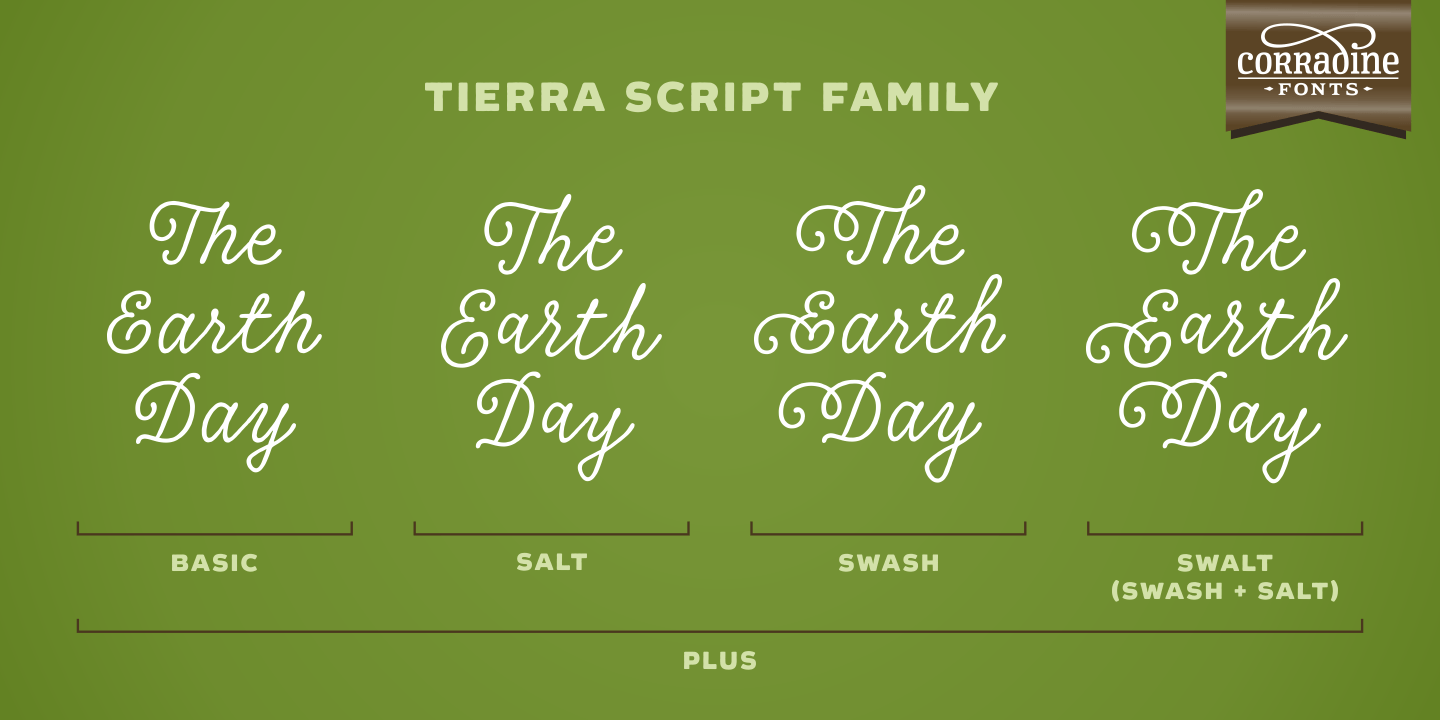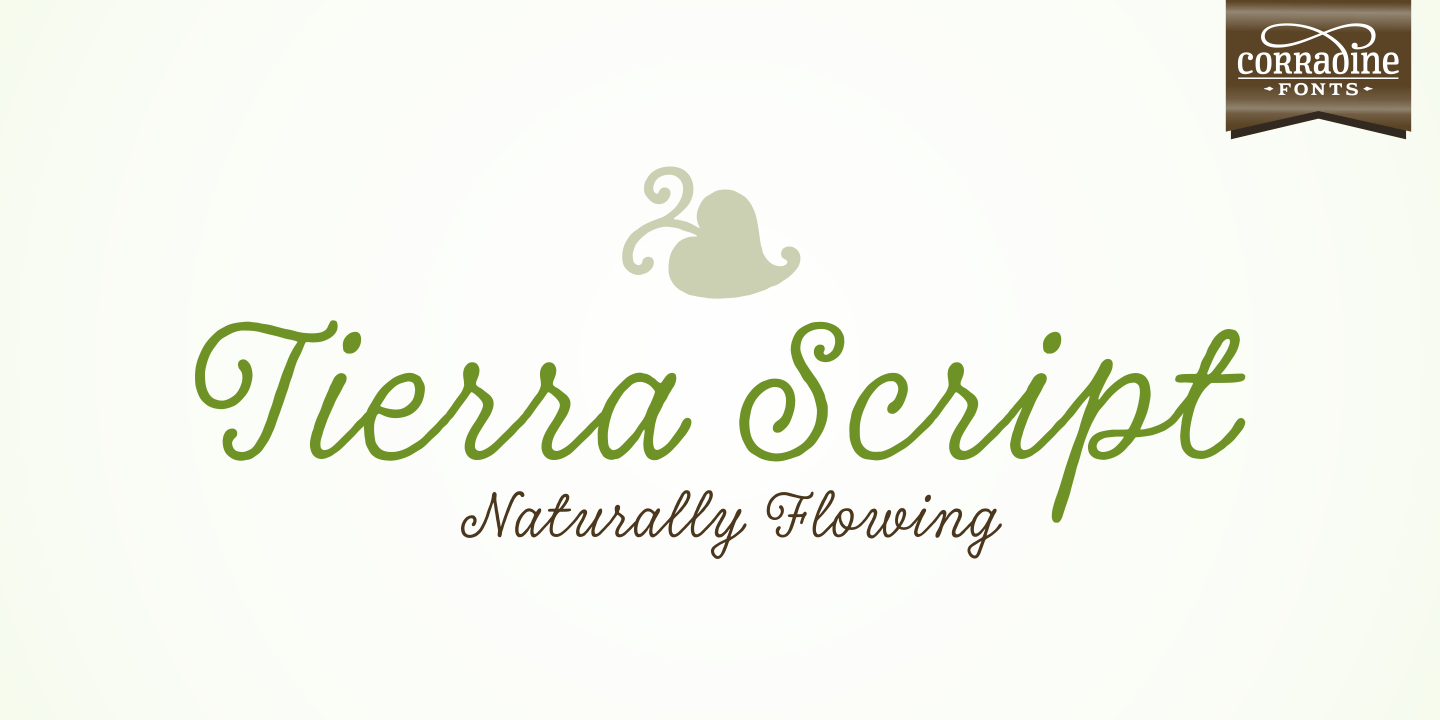
Tierra Script
About Tierra Script
Tierra Script is a connected script typeface with a simple structure and organic contour. Its naivety and fluency makes it easy to read and close to everyone. The system has two main styles, one more formal than the other, then could be used in a wide…